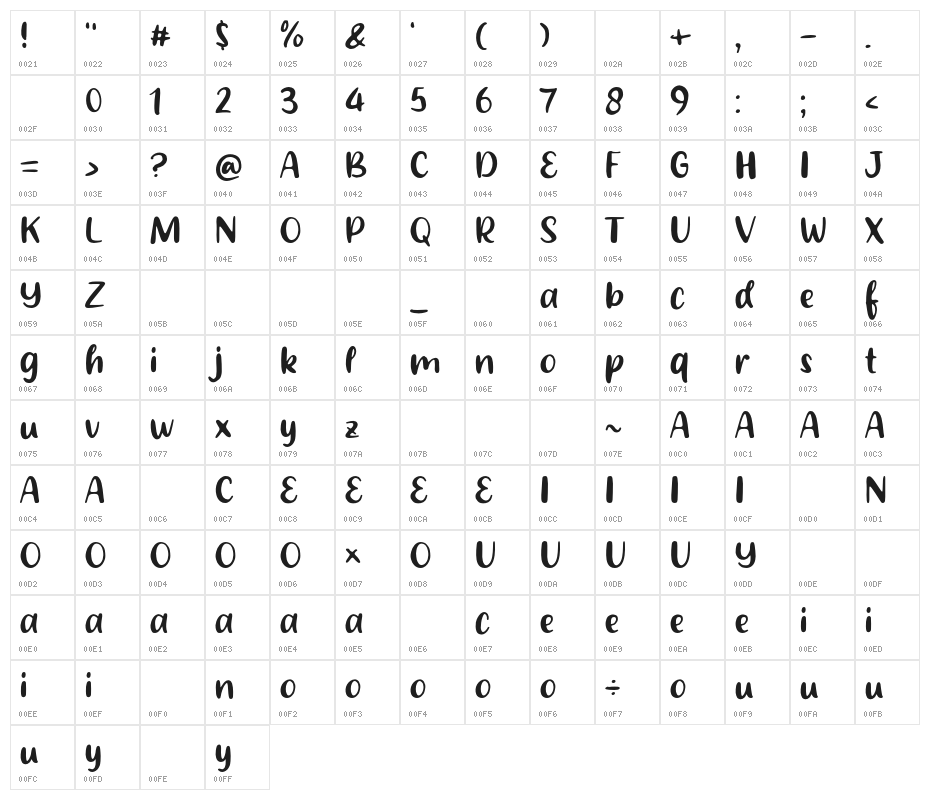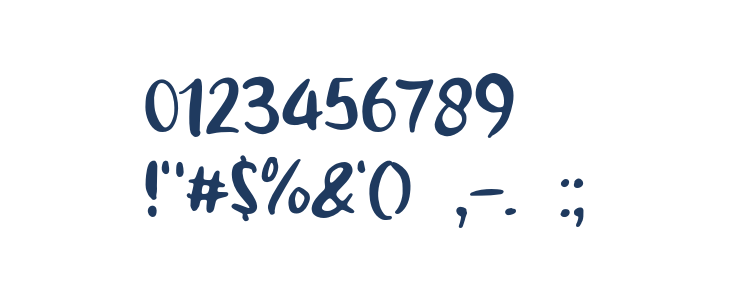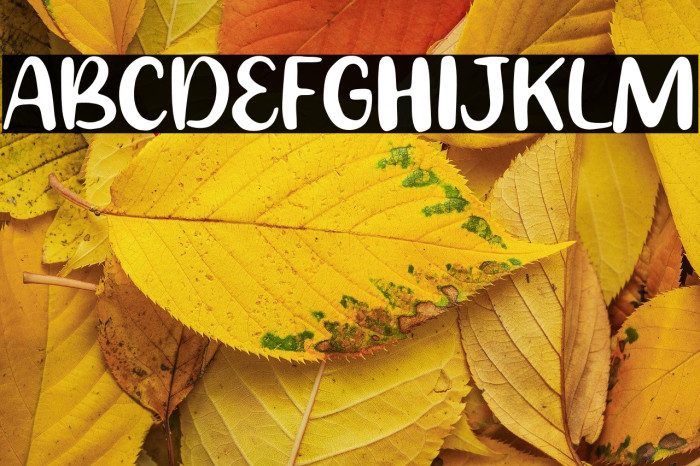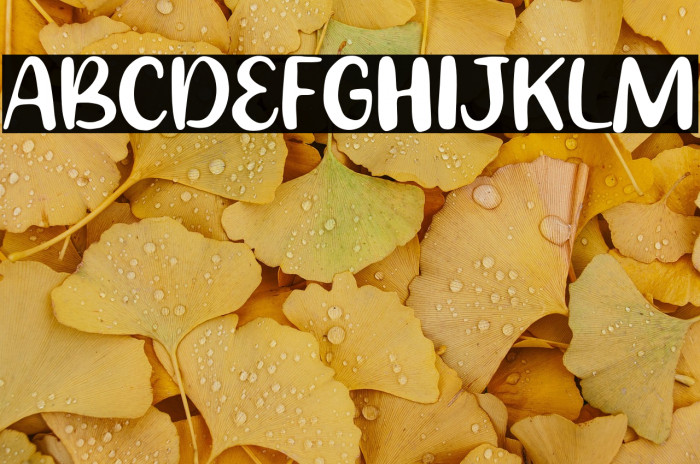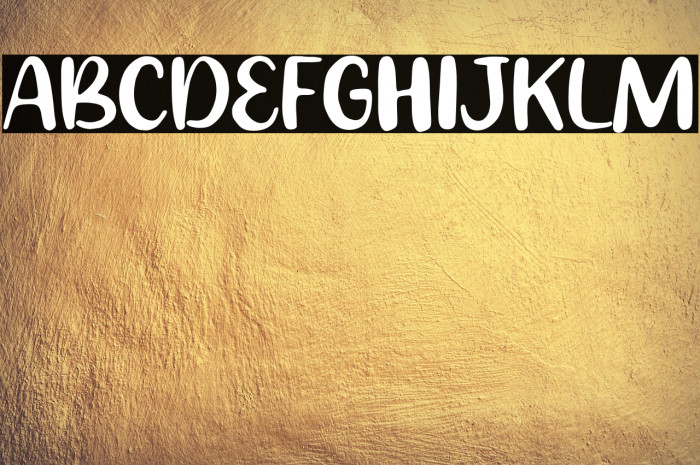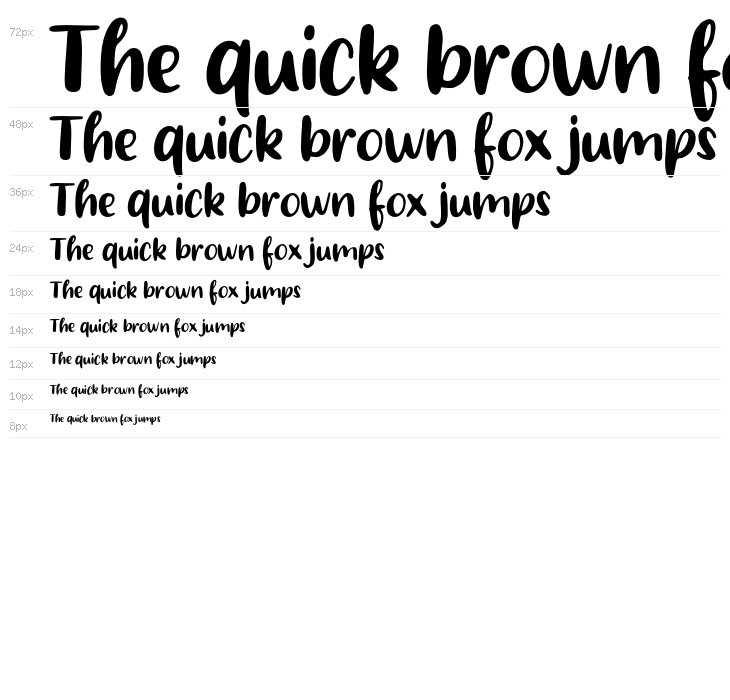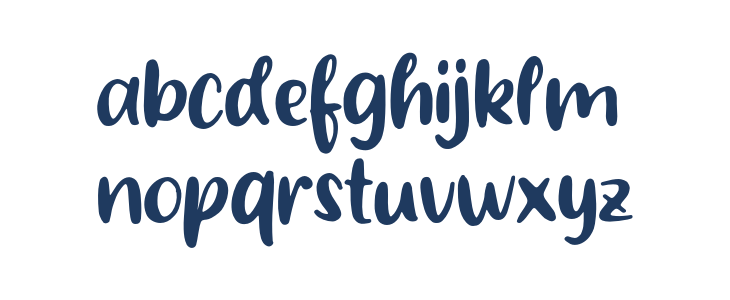
Bright City Font
Bright City Description
This font features a playful and bold handwritten style, characterized by its smooth curves and rounded edges. The letters are slightly slanted, giving a dynamic and lively appearance. The uppercase and lowercase letters maintain a consistent flow, with a noticeable contrast between thick and thin strokes, adding to its expressive nature. The numerals and special characters follow the same design principles, ensuring uniformity across all glyphs. This font exudes a friendly and approachable vibe, making it suitable for creative and informal applications.
| Use Case | Logos, Headlines, Informal Text |
| Proposed Projects | Ideal for greeting cards, children's books, playful branding, and social media graphics. |